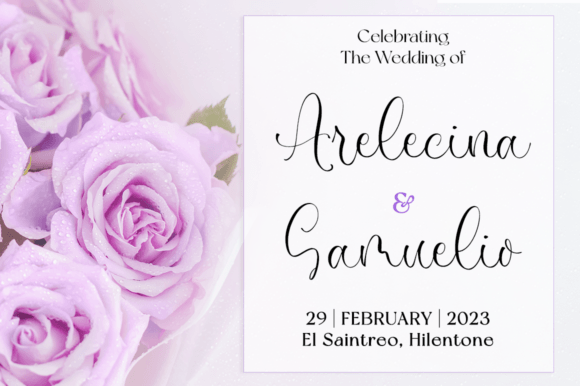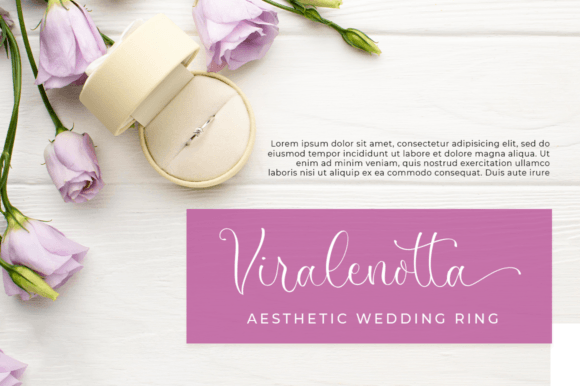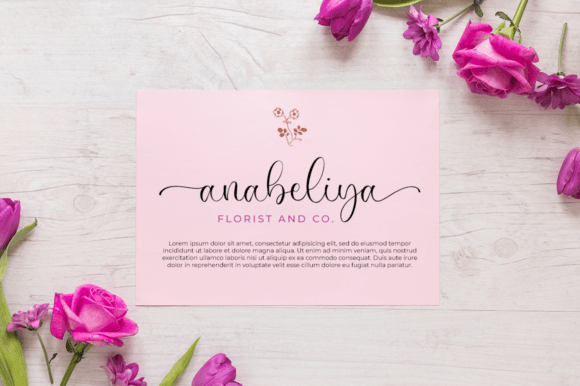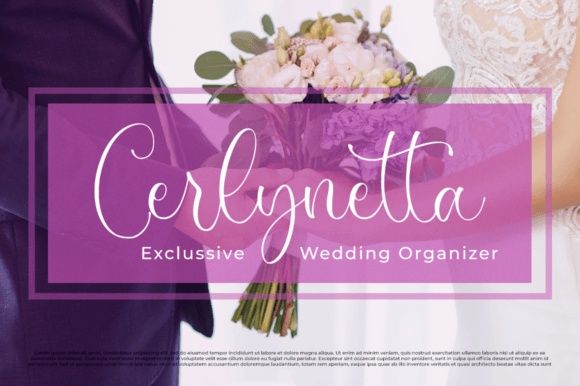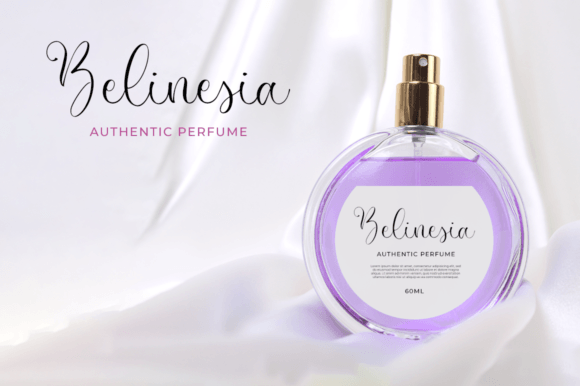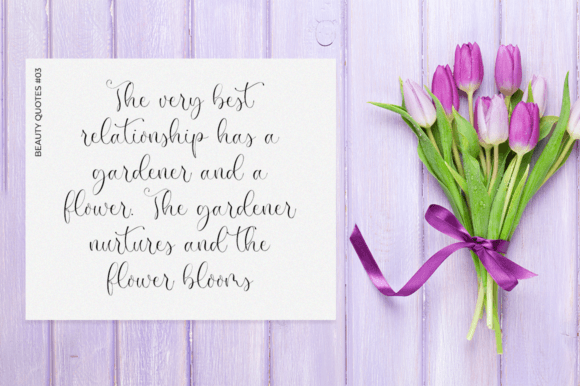
Introduction to Monettise Font Font
Fonts play a crucial role in design, and the Monettise Font font is a typeface that brings both character and versatility to any project. Whether you’re working on a branding project, a website, or a print design, the Monettise Font font offers a unique style that can elevate your work.
Monettise is a lovely and delicate script font that exudes elegance and class.
Key Features of Monettise Font Font
Why Choose Monettise Font Font?
The Monettise Font font is more than just a typeface – it’s a design tool that helps you communicate your message with style and clarity. Its unique character set and versatile design make it suitable for a wide range of applications, from elegant invitations to bold headlines.
With its carefully crafted letterforms and balanced proportions, the Monettise Font font ensures readability and visual appeal across all mediums.
What makes Monettise Font font special?
The Monettise Font font stands out with its unique design, exceptional readability, and versatility across various design applications.